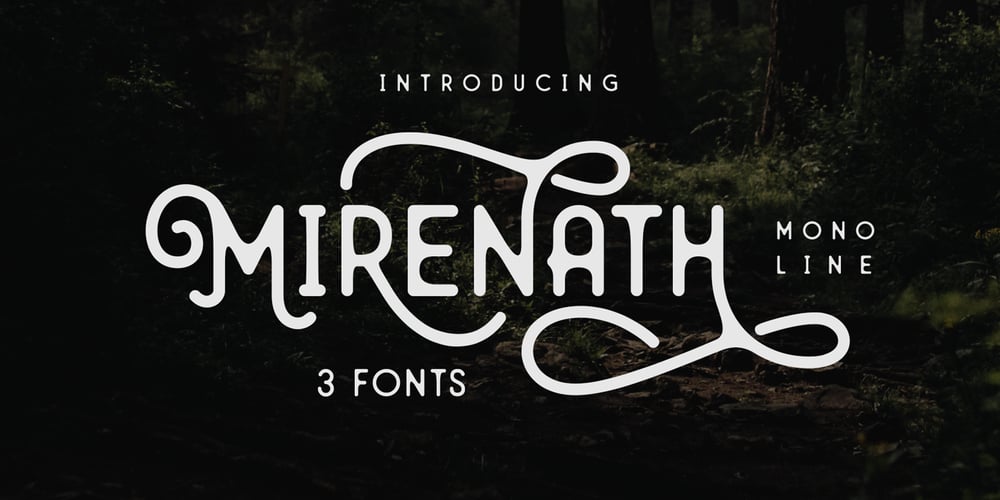
Mirenath Font Family was designed by Ahmad Ramzi Fahruddin and published by Arterfak Project. Mirenath contains 3 styles and family package options. Introducing Merinath Typeface a rounded vintage monoline. Merinath is clean modern-vintage display font which inspired from old school letterpress and rounded sans serif shapes. This font was created and explored become 3 styles with over 500 glyphs on each font. Also with many features that give you many options in your design project. You can access the open type features by accessing Font Book (Mac) and Character Map (Win) or you can get it in design software like Photoshop, Illustrator, CorelDraw, InDesign etc. Here’s what you’ll get : – Merinath Normal : Looks good for a headline, editorial, body text, and other formal styles. – Merinath Rounded : With the inky effect, this style is awesome for old school, hipster, vintage, typographic, sign board, logo design and letterpress effect. – Merinath Bold : Suitable for food, kids, logotype and other joyful designs. TTF & OTF format features : – Uppercase – Lowercase – Numbers – Symbols – Ligatures – Stylistic alternates – Contextual alternates – Swashes – Stylistic set 01 – Stylistic set 02 – Multilingual characters : Afrikaans, Albanian, Catalan, Croatian, Czech, Danish, Dutch, English, Estonian, Finnish,French, German, Hungarian, Icelandic, Italian, Lithuanian, Maltese, Norwegian, Polish, Portugese, Slovak, Slovenian, Spanisch, Swedish, Turkish, Zulu Thank you for visits and enjoy!